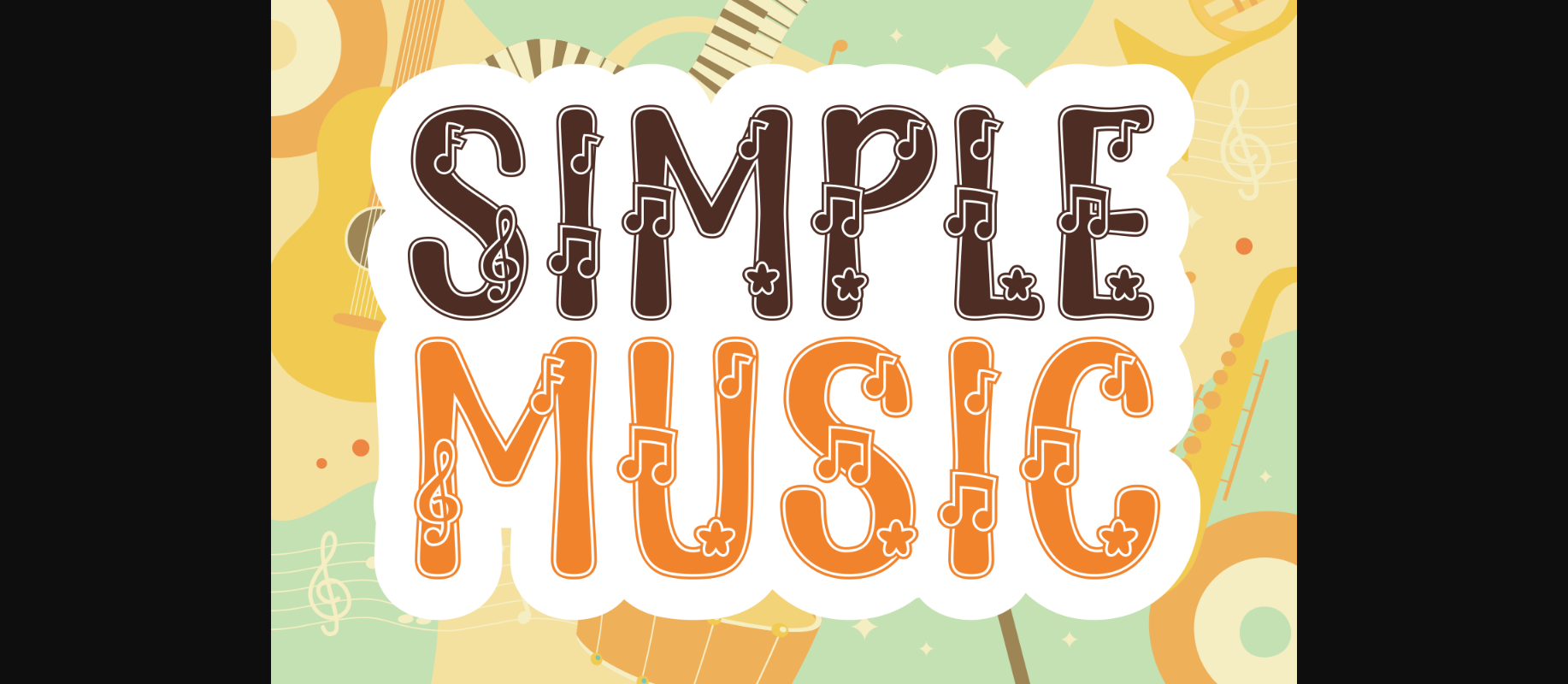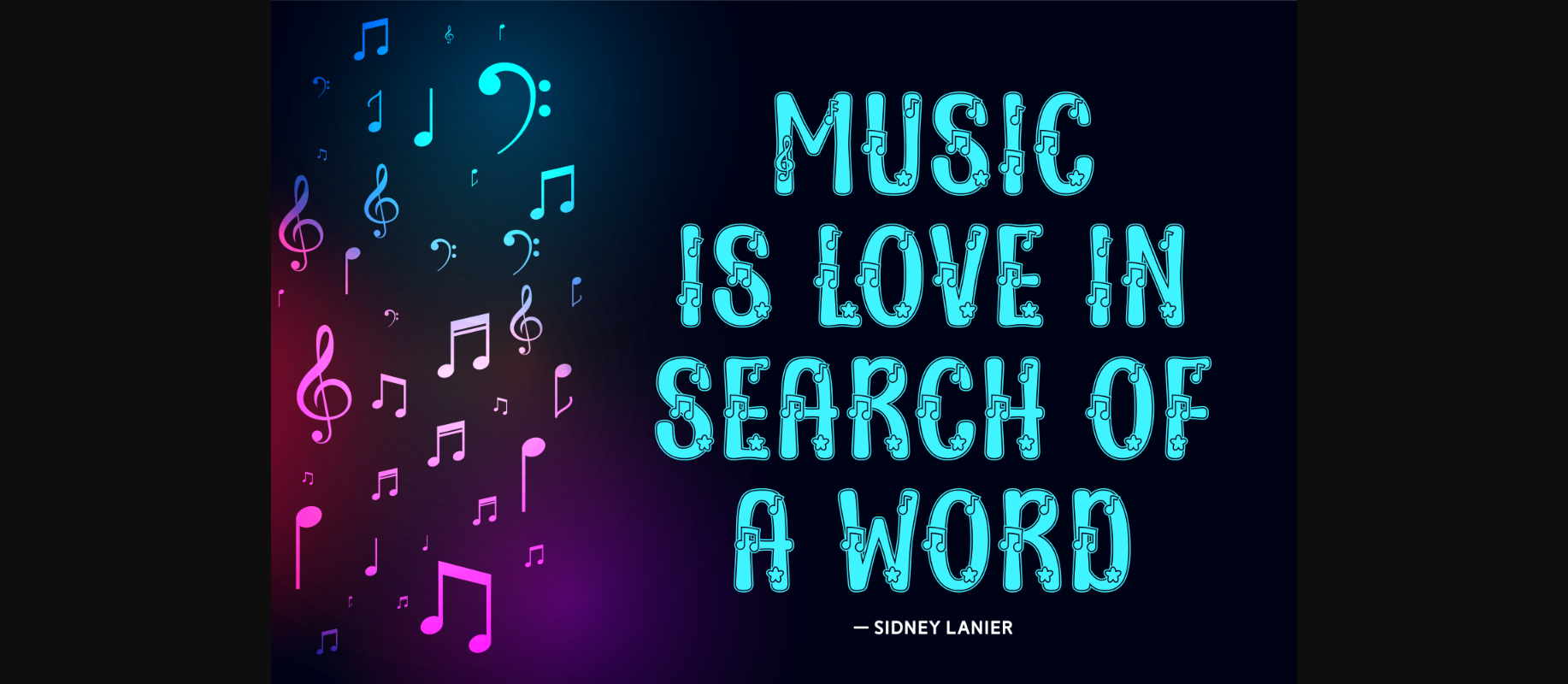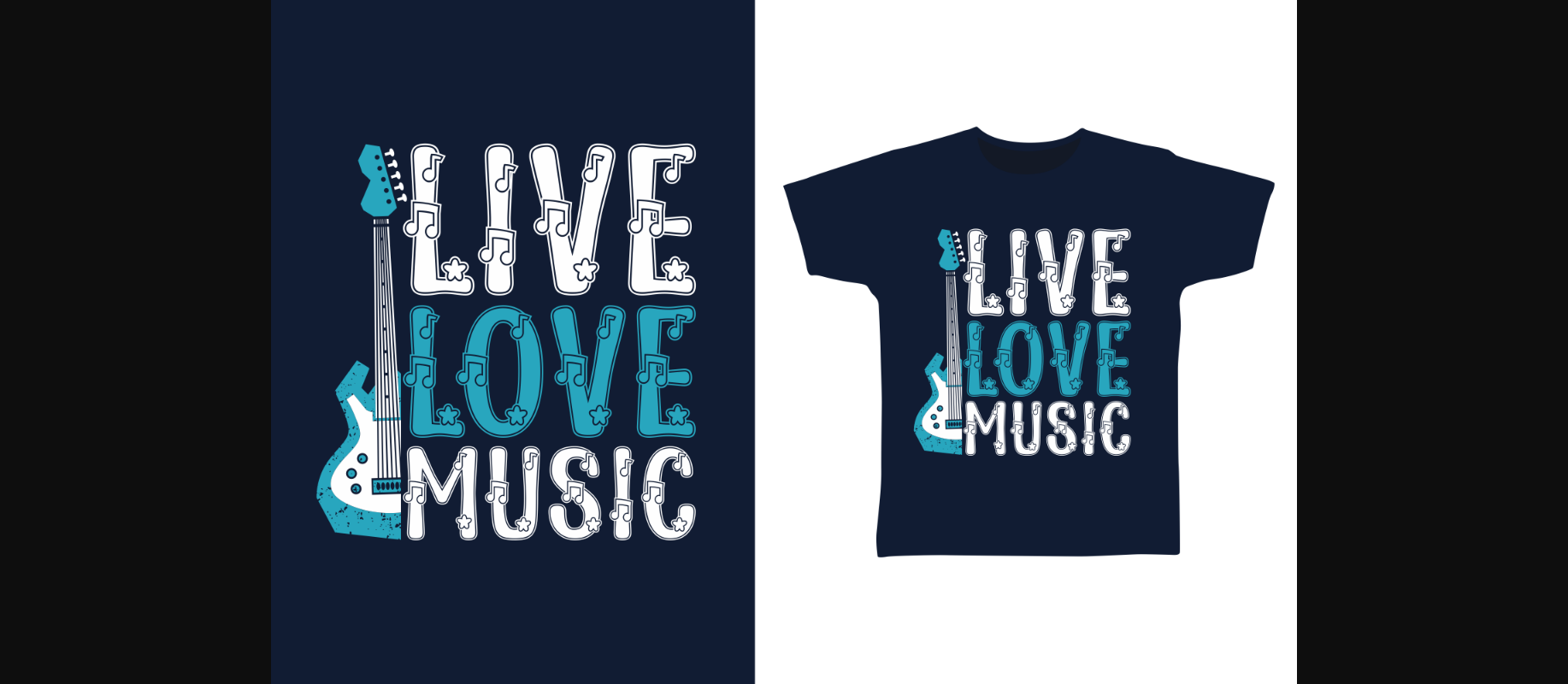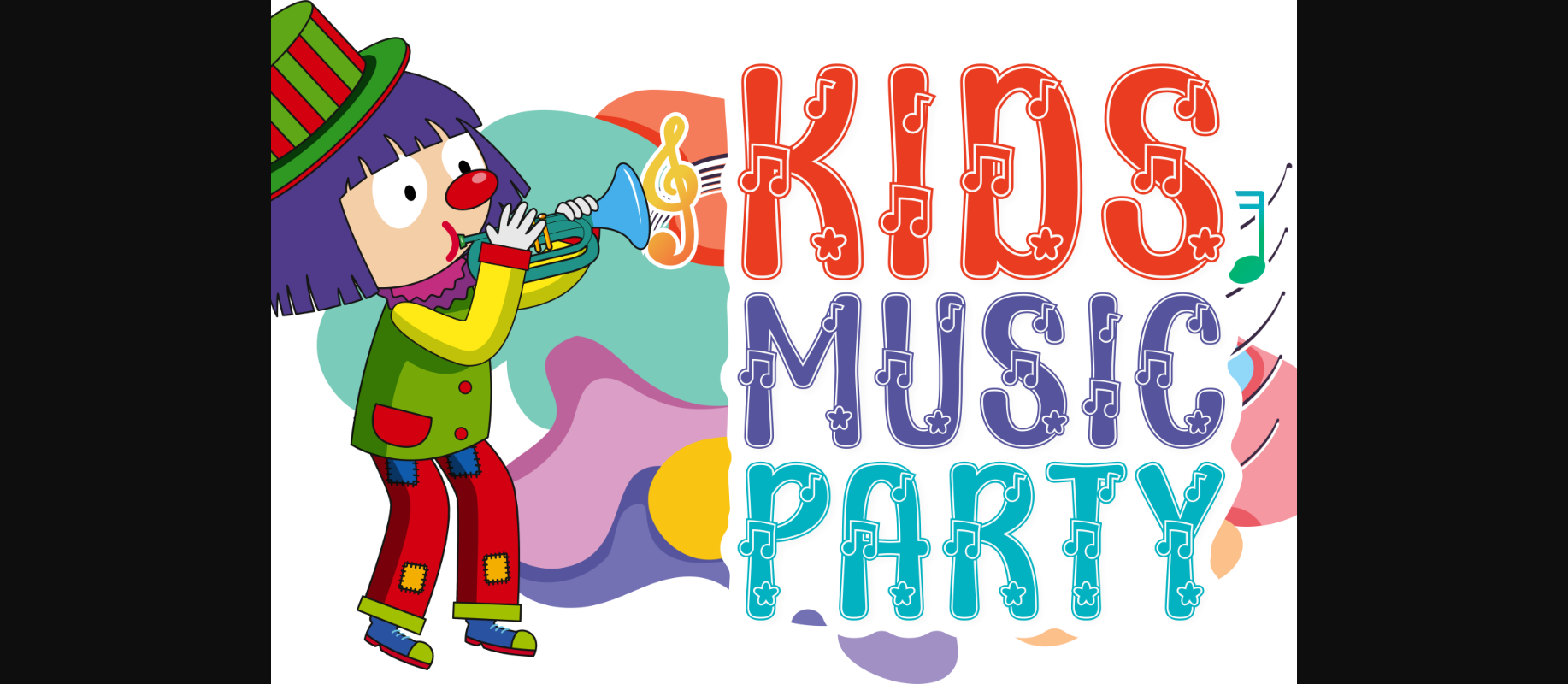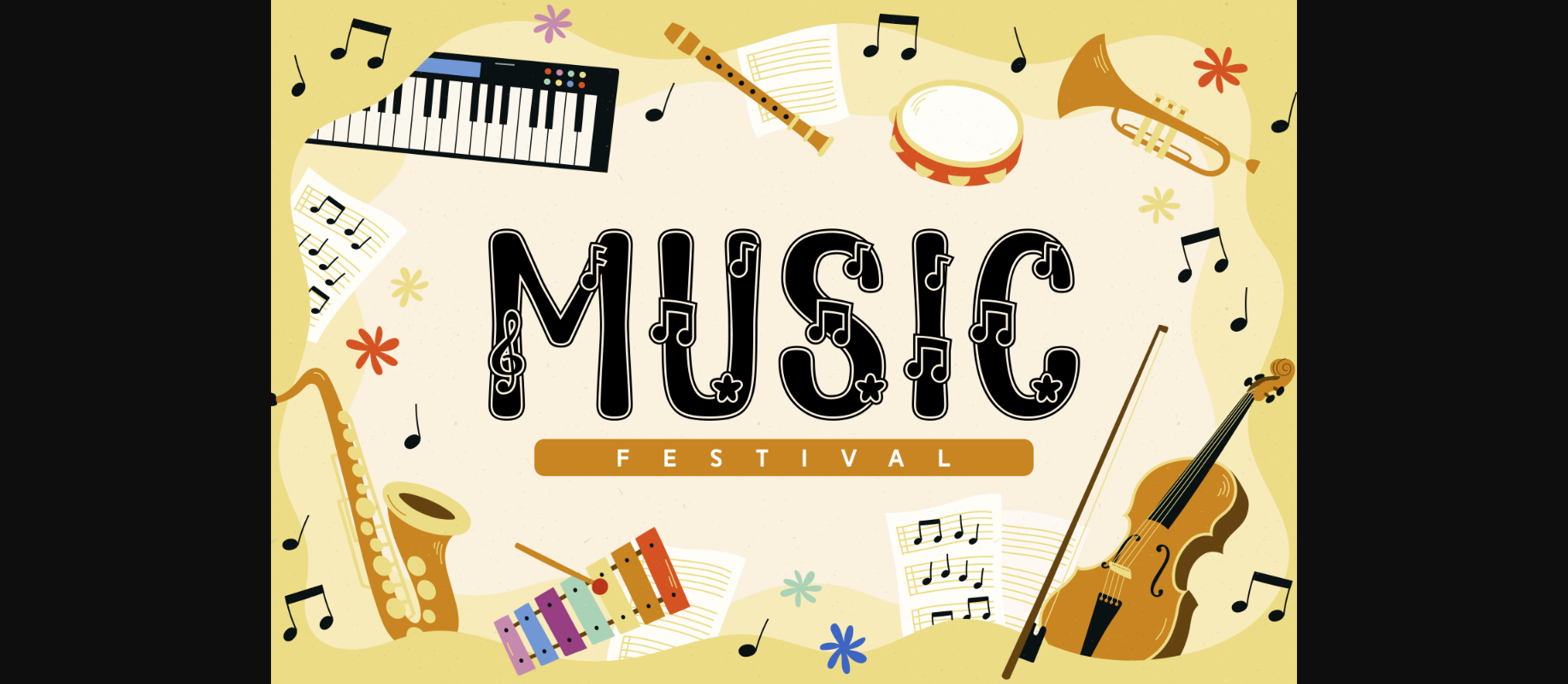
About Simple Music Font
The perfect font for music lovers is here. Specially designed for musicians and music listeners alike, this decorative font will enhance your creations.